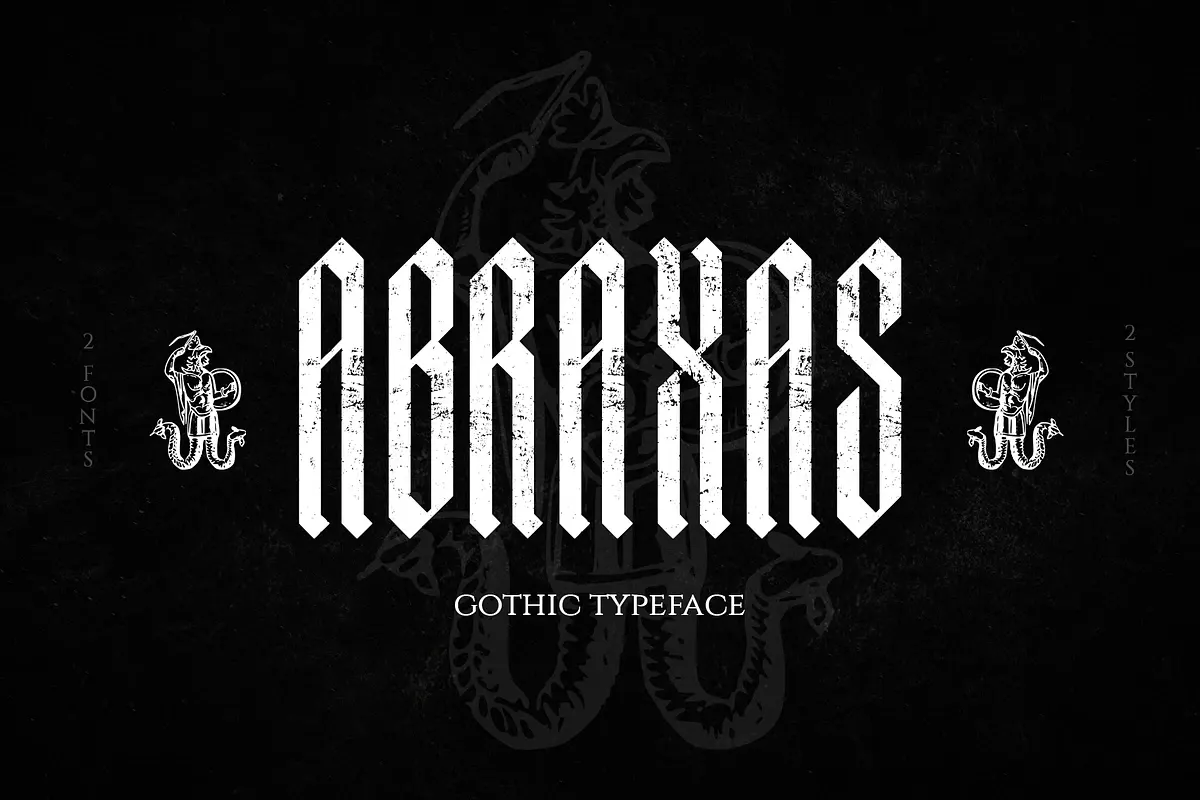
ABRAXAS | Gothic Typeface Free Download is a dramatic and powerful typeface inspired by medieval calligraphy and dark fantasy aesthetics. With its sharp serifs, ornate details, and bold structure, ABRAXAS is perfect for band logos, book covers, gothic branding, metal album artwork, and mysterious poster designs that demand a strong, moody presence.
The font delivers a classic gothic vibe while still feeling modern and intense. Its stylized letterforms make it ideal for impactful headers, dark-themed visuals, or any project that embraces mysticism, fantasy, or alternative culture.